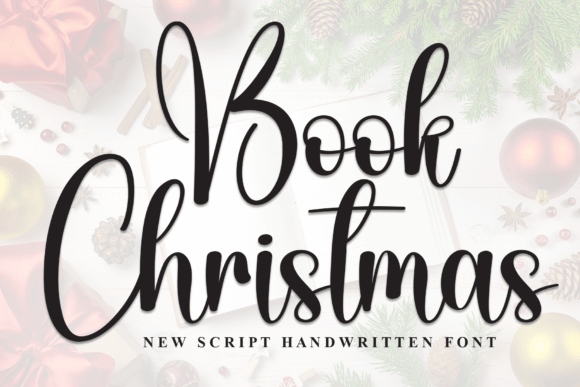
Get into the Holiday Spirit with Book Christmas Font
As a designer, you know the magic of creating something special for the holiday season. It’s that moment when you’re brainstorming ideas for a festive project, and suddenly, a spark of creativity hits you – the perfect font to capture the joy and warmth of Christmas. For many designers, that spark comes in the form of Book Christmas Font, a delightful and cheerful design that embodies the essence of the holiday season.
Book Christmas Font is a beautiful, handwritten font featuring the word “Christmas” in bold, playful letters, perfect for holiday books, cards, or decorations. Its warm and welcoming feel makes it an invaluable asset for designers looking to add a personal touch to their projects. With Book Christmas Font, you can infuse your designs with the magic of the season, making it a valuable addition to any holiday-themed project.
Key Features of Book Christmas Font
- Character Count: The font includes a wide range of characters, including uppercase and lowercase letters, numbers, and special characters, making it suitable for various design needs.
- Unique Characteristics: The Book Christmas Font features a classic, elegant design with a traditional feel, perfect for creating a warm and festive atmosphere during the holiday season.
Book Christmas Font Review
Overall, I’m fairly impressed with the Book Christmas Font. Here’s what I like about it:
- ✨ It’s a great choice for festive holiday designs, adding a warm and cozy touch to any project.
- ✨ The font is highly customizable, allowing you to adjust the size, color, and style to suit your needs.
- ✨ It’s available in a range of weights, from light to bold, making it suitable for various design applications.
However, there are a few limitations I’d like to point out:
- ⚠️ The font may not be the best choice for minimalist designs, as its ornate and traditional feel can be overwhelming.
- ⚠️ Some of the characters may not be as smooth or polished as I’d like, which can be distracting in certain contexts.
- ⚠️ The font is not suitable for digital displays, as it can be difficult to read at small sizes or on low-resolution screens.
Overall, I think the Book Christmas Font is a solid choice for holiday designs, but it may not be the best fit for every project. With some careful selection and customization, it can add a nice touch to your designs.
Book Christmas Font is ideal for creating festive holiday invitations, greeting cards, and social media posts. To get the most out of it, experiment with different font sizes, colors, and combinations to achieve a unique and eye-catching look. You can also use it to create a cohesive brand identity for your holiday marketing campaigns.